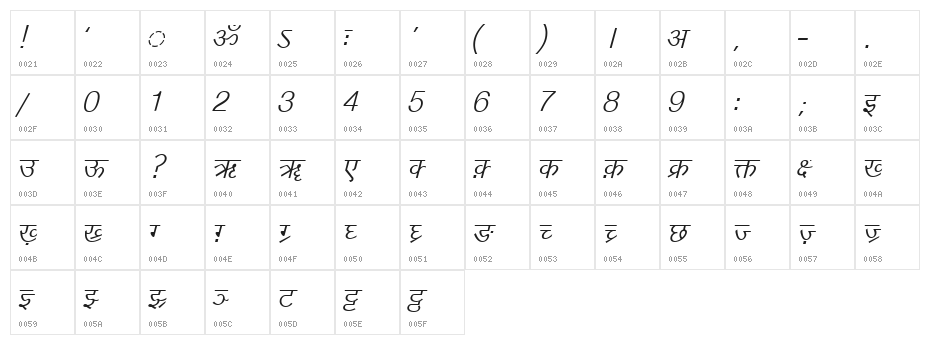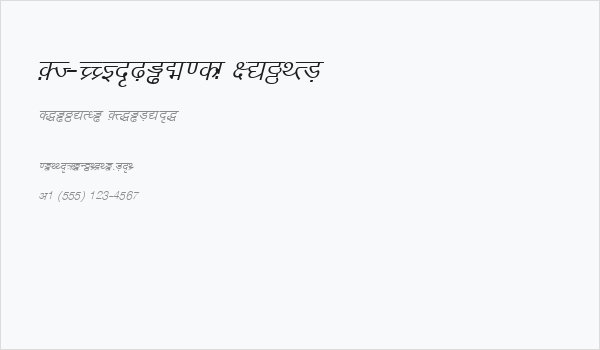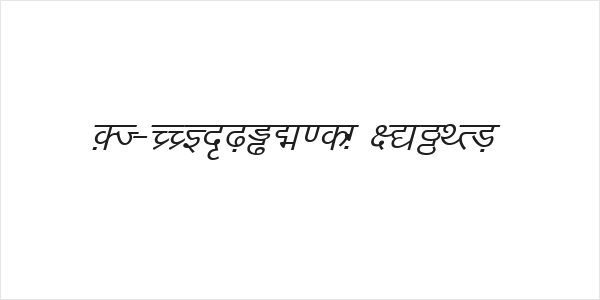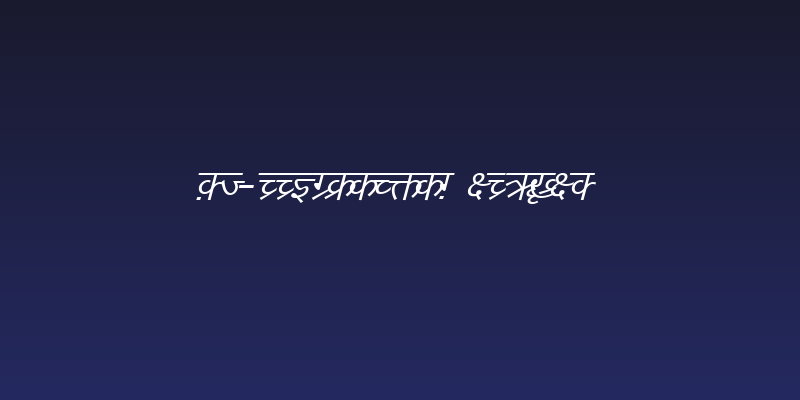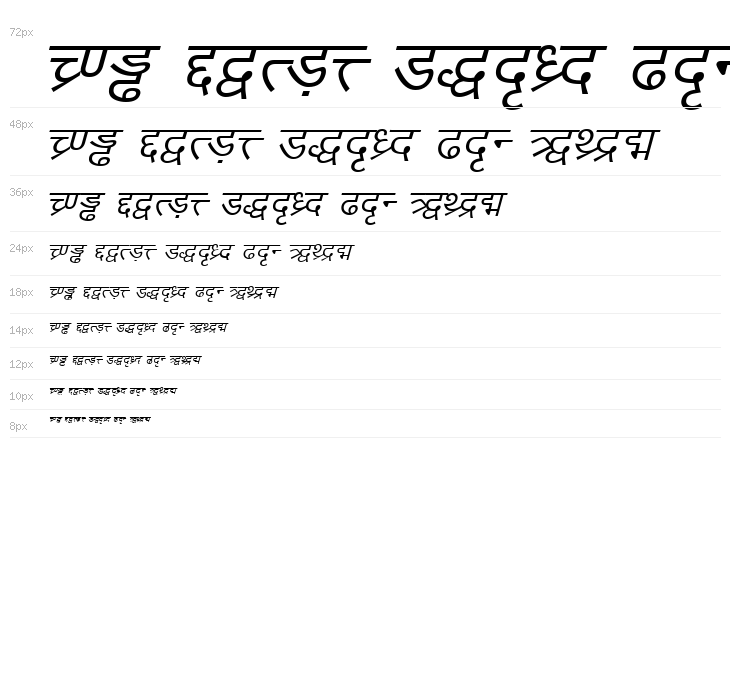
DV-TTYogeshEN Italic Font
DV-TTYogeshEN Italic Description
This font features an italic style with a distinct slant, giving it a dynamic and flowing appearance. The characters are designed with a moderate stroke contrast, providing a balanced and readable look. The script-like quality of the font is enhanced by its elegant curves and smooth connections between letters. It maintains a consistent line weight, which contributes to its overall uniformity and legibility. The numerals are clear and well-proportioned, matching the style of the letters. Special characters are included, offering versatility for various uses. The font's design is suitable for both digital and print media, making it a versatile choice for a wide range of applications.
| Use Case | Headlines, Invitations, Branding |
| Proposed Projects | Ideal for use in invitations, greeting cards, branding projects, and editorial design where a touch of elegance is desired. |